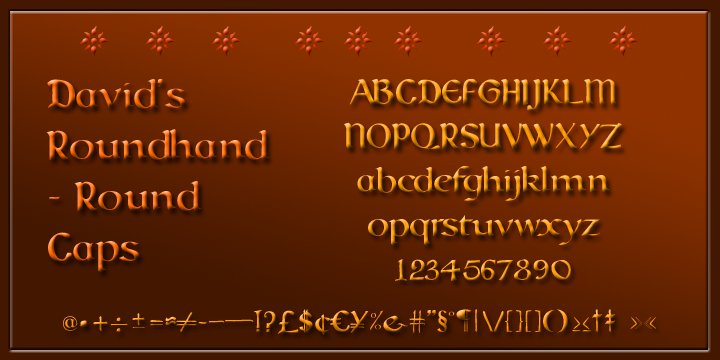
A very harmonic rendering of the classic late-mediaeval round hand, provided here with a choice of two kind of capitals, Lombardic and Round.
Usable in all kinds of contexts, both historic and modern.